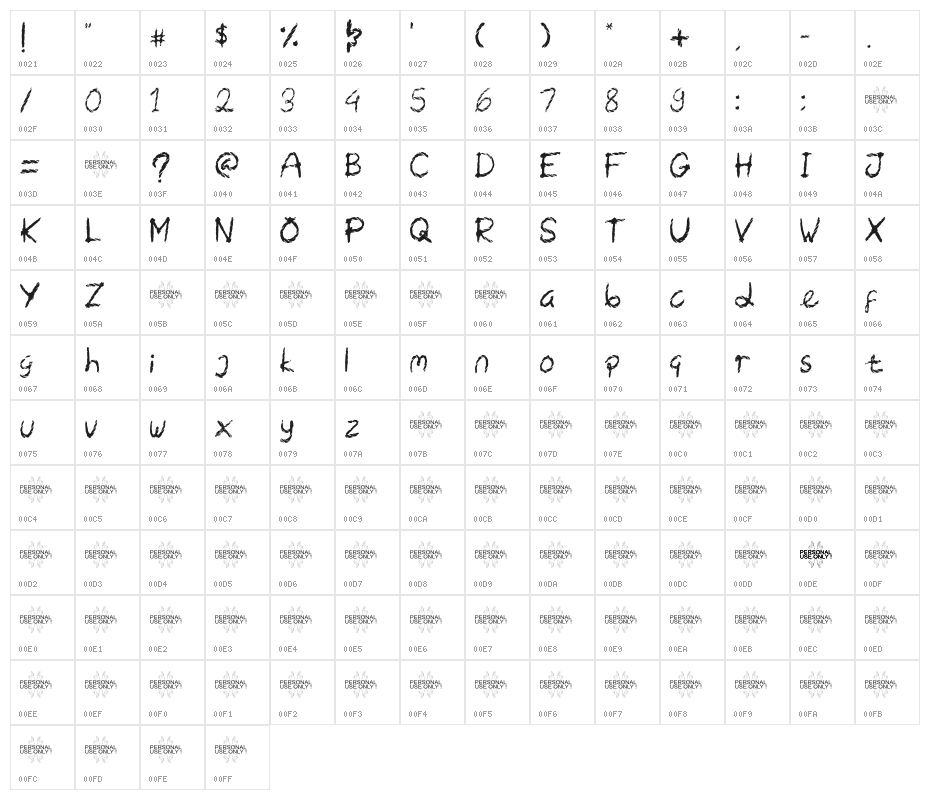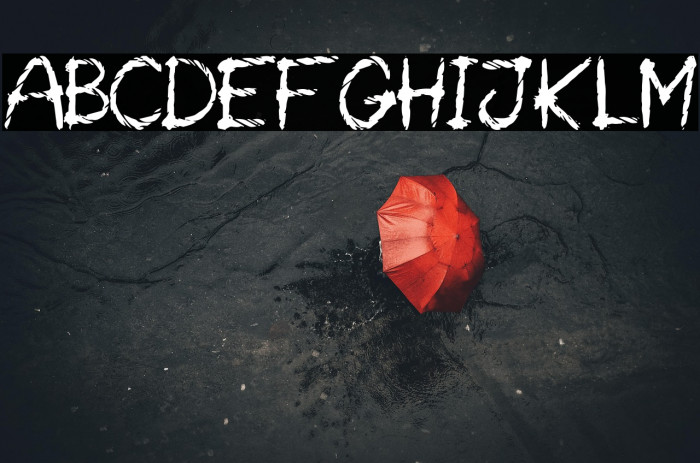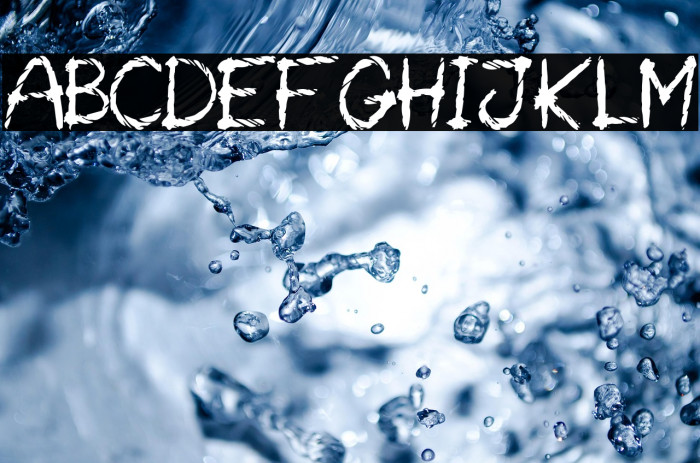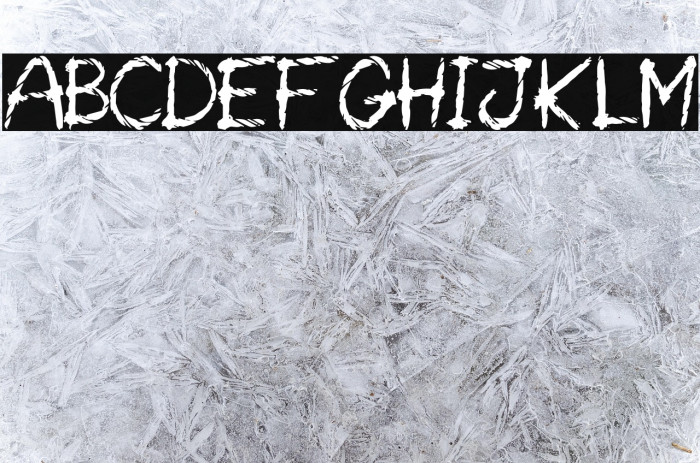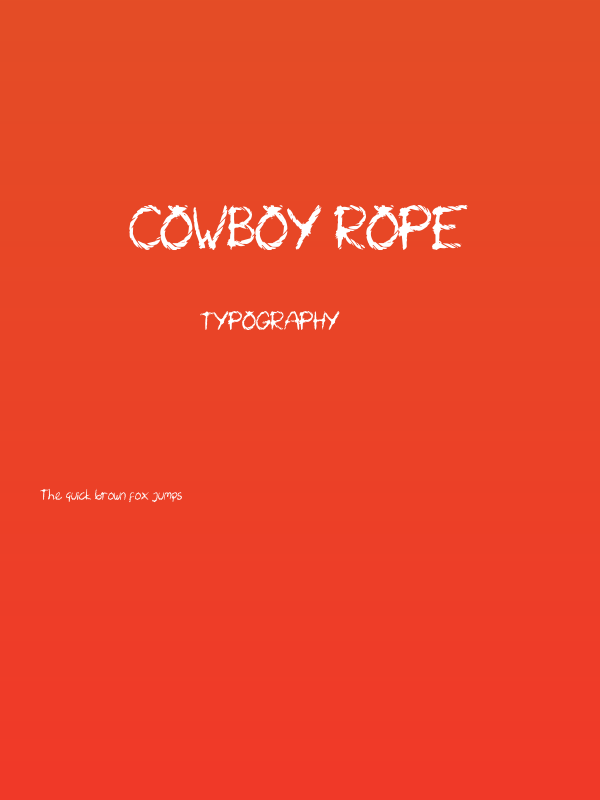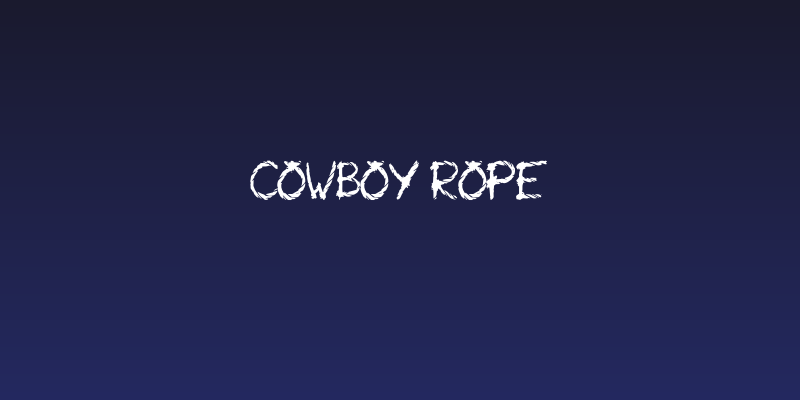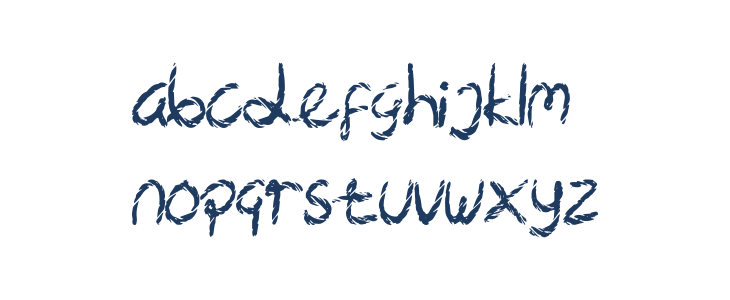
Cowboy Rope Font
Cowboy Rope Description
This font features a rugged, textured design that mimics the appearance of twisted rope, giving it a distinctly Western and rustic feel. The characters are bold and dynamic, with uneven strokes that create a sense of movement and energy. Each letter has a unique, hand-crafted look, with varying thicknesses and angles that add to its authenticity. The font includes a full set of uppercase and lowercase letters, numbers, and a selection of special characters. Its distinctive style makes it ideal for projects that require a touch of the Wild West or a vintage, handcrafted aesthetic.
| Overall Style | Vintage |
| Proposed Projects | Ideal for Western-themed posters, rustic branding, vintage signage, and creative design projects that require a bold, textured look. |